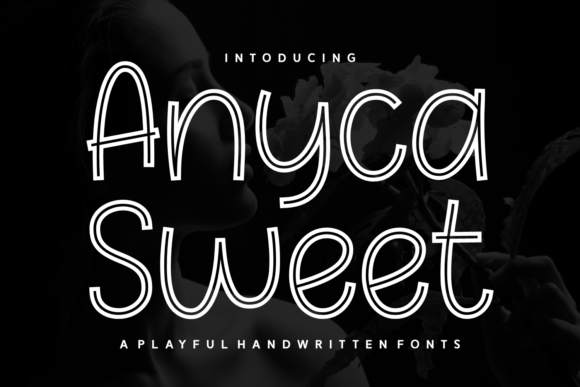
The Sweet Spot: Discovering Anyca Sweet Font
I’ll never forget the time I was working on a children’s book project, and I just couldn’t find the right font to bring the story to life. The client wanted something playful, yet elegant; fun, yet readable. I scoured the internet, tried out dozens of fonts, but nothing seemed quite right. That was until I stumbled upon Anyca Sweet. ✨ It was like a breath of fresh air – the perfect blend of whimsy and charm that instantly captured the essence of the story.
A Personal Review of Anyca Sweet
So, what makes Anyca Sweet so special? Let’s dive into the good stuff! 😊
• ✅ Delightful and Hand-Drawn: Anyca Sweet boasts a beautiful, hand-drawn design that exudes warmth and friendliness.
• ✅ Playful yet Elegant: This font strikes the perfect balance between fun and sophistication, making it ideal for a wide range of creative projects.
• ✅ Versatile: From greeting cards to children’s books, logos, and posters, Anyca Sweet adapts seamlessly to various design contexts.
• ✅ Easy to Read: Despite its playful nature, Anyca Sweet remains highly legible, even at smaller font sizes.
Of course, no font is perfect, and Anyca Sweet has a few minor quirks to consider:
• ⚠️ Limited Formality: As a playful font, Anyca Sweet may not be the best choice for formal or corporate designs.
• 🤔 Occasional Kerning Issues: As with any font, you may encounter some kerning issues, especially when using All Caps or large font sizes.
3. Experiment with OpenType features like ligatures and stylistic alternates to add more flair to your text.
The Story Behind Anyca Sweet
Anyca Sweet was designed with the intention of capturing the pure joy and playfulness found in childhood. The designer aimed to create a font that would feel like a warm hug – comforting, friendly, and inviting. Through careful attention to detail and a passion for whimsical design, Anyca Sweet was brought to life.
What type of projects is Anyca Sweet best suited for? Anyca Sweet is perfect for personal, child-centered, and casual designs such as greeting cards, children’s books, invitations, logos, and posters.
Is Anyca Sweet suitable for formal designs? No, due to its playful nature, Anyca Sweet is not recommended for formal or corporate designs.
Does Anyca Sweet support OpenType features? Yes, Anyca Sweet supports various OpenType features, including ligatures and stylistic alternates, which can enhance your designs.